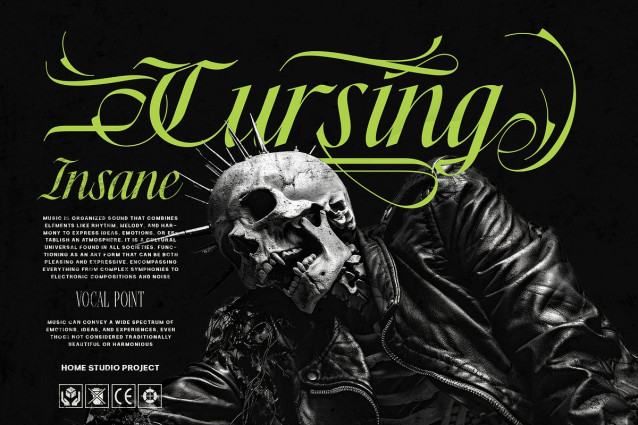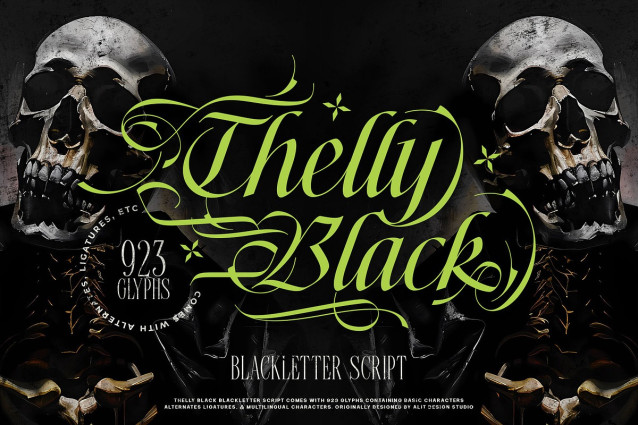
Thelly Black Font
Thelly Black Font, a commanding blackletter script typeface designed to make a devastating impact. Step into the shadows where classic calligraphy collides with a raw, modern edge. Thelly Black is not merely a font; it is an arsenal of creative power. Each character is meticulously crafted, flowing with a fierce energy that is both beautiful and brutal. The sharp, decisive strokes and elaborate swashes give your text an unforgettable identity, perfect for projects that demand to be seen and felt.
With a staggering 923 glyphs, the power of customization is entirely in your hands. Thelly Black is packed with a vast array of stylistic alternates, ligatures, and decorative swashes, allowing you to transform every word into a unique piece of art. Whether you’re crafting a menacing logo for a metal band, designing iconic branding for a tattoo studio, or creating powerful headlines that seize attention, Thelly Black provides the versatility you need to bring your dark vision to life.